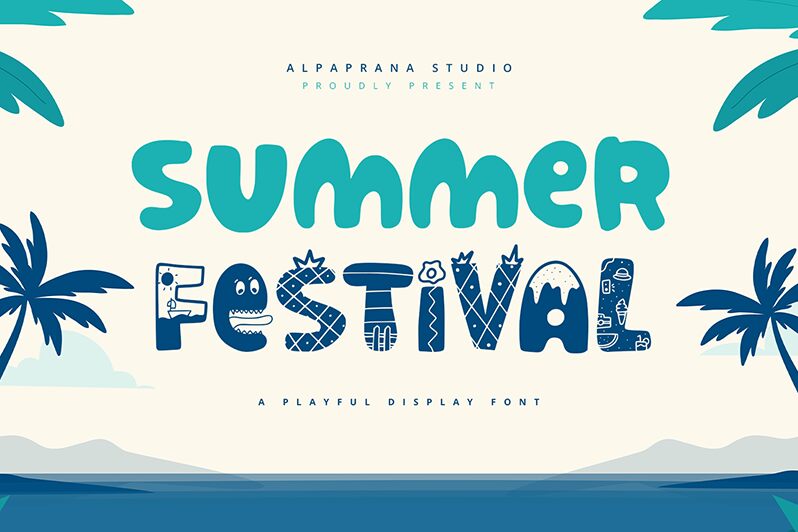
Summer Festival
Summer Festival, crafted by Alpaprana Studio, is a bold display font with a playful cartoon style that exudes an air of whimsy and fun. Its chunky letterforms are reminiscent of joyous summer days, infusing any design with a sense of celebration and liveliness. The font's buoyant curves and exaggerated features create a friendly and approachable vibe.
Perfect for event posters, children's book titles, or any project that requires a touch of festivity, Summer Festival instantly transports viewers to a world of sunlit experiences and laughter-filled moments. This font is not just about capturing attention; it's about setting the stage for unforgettable memories.